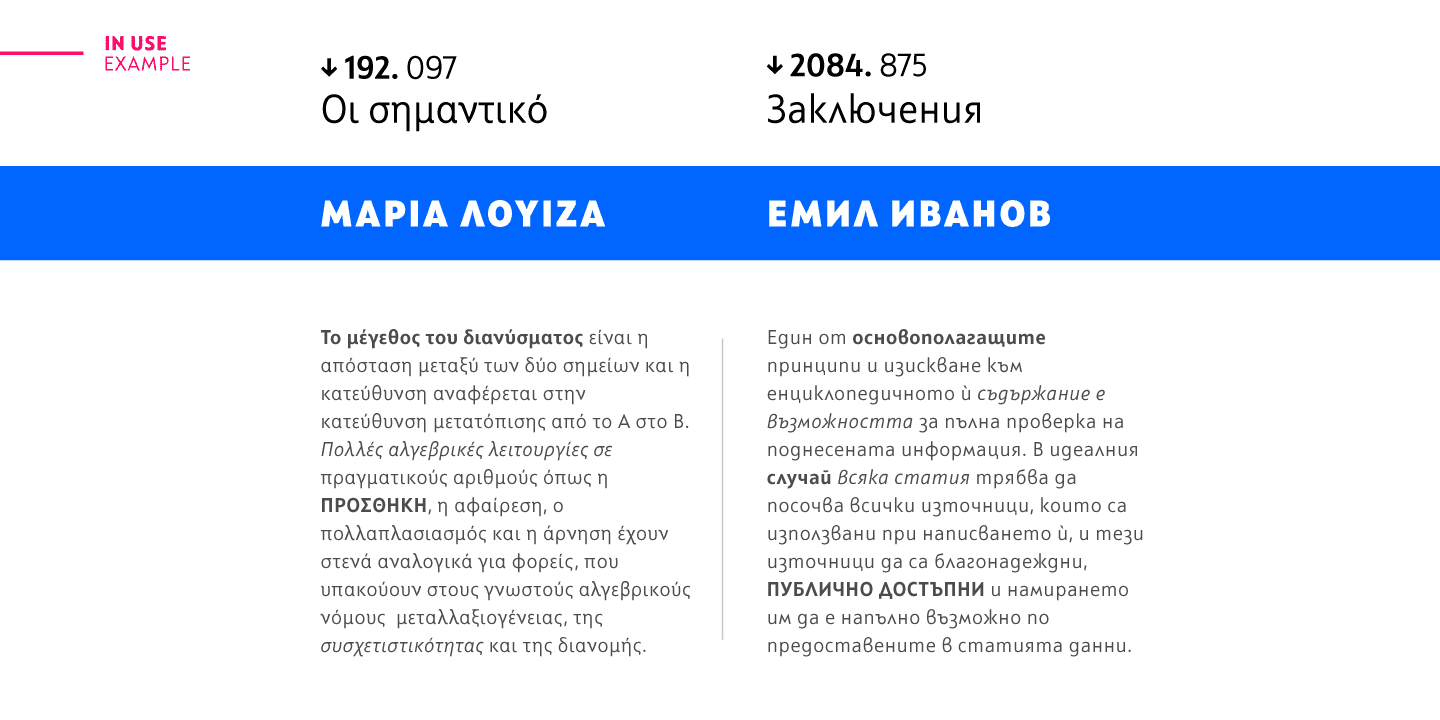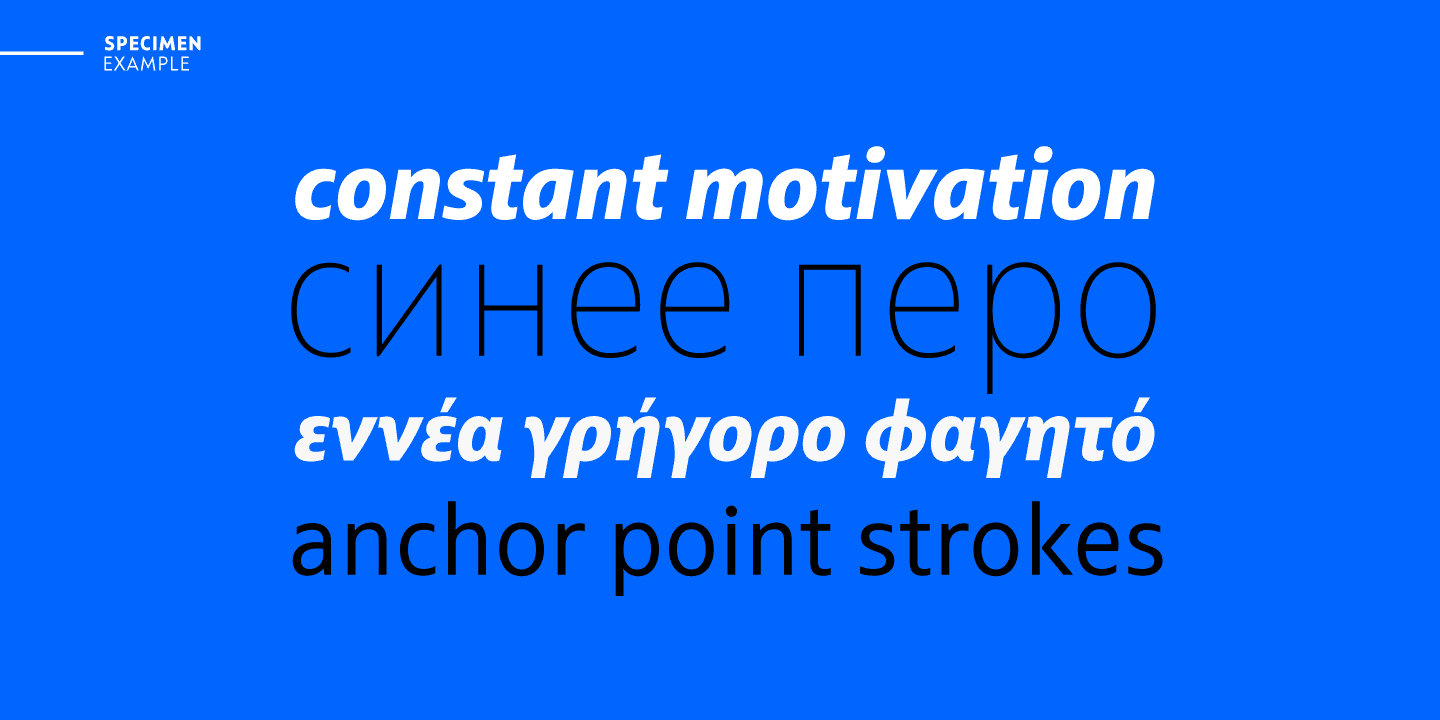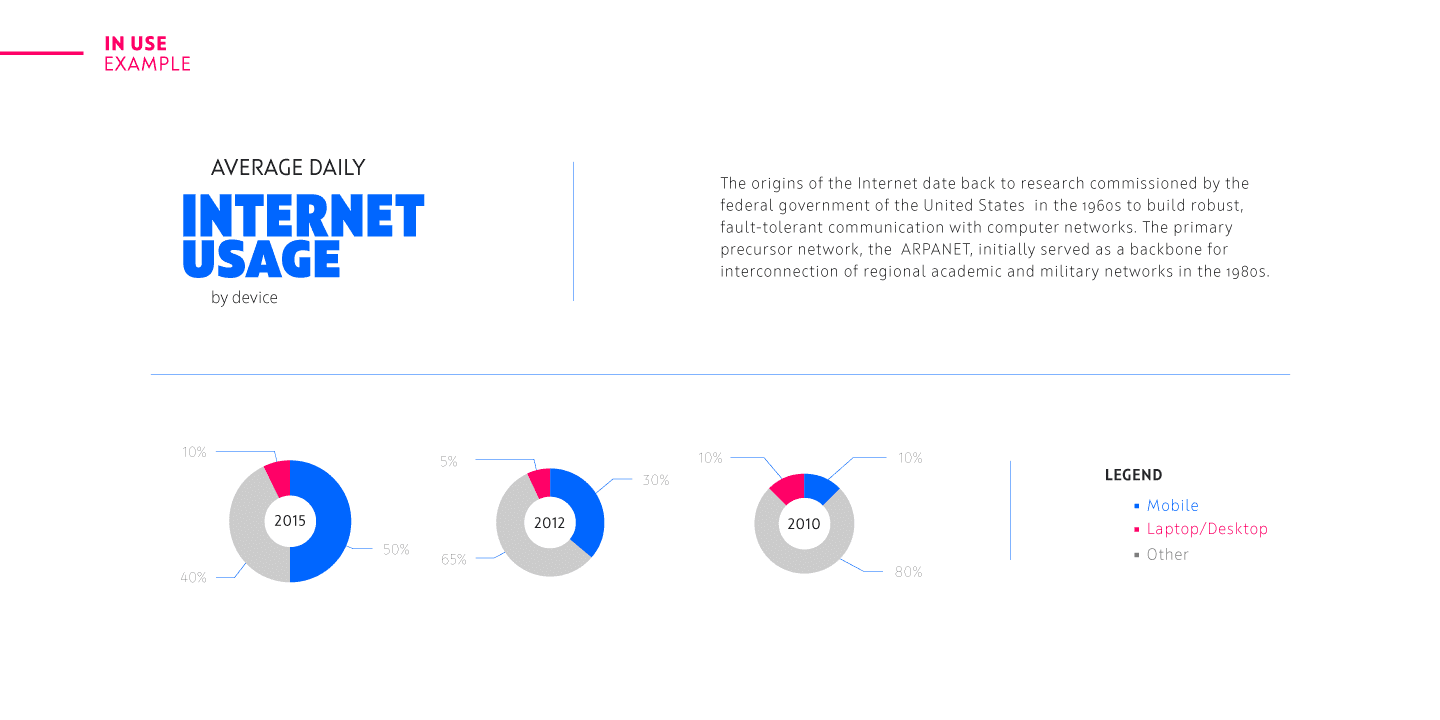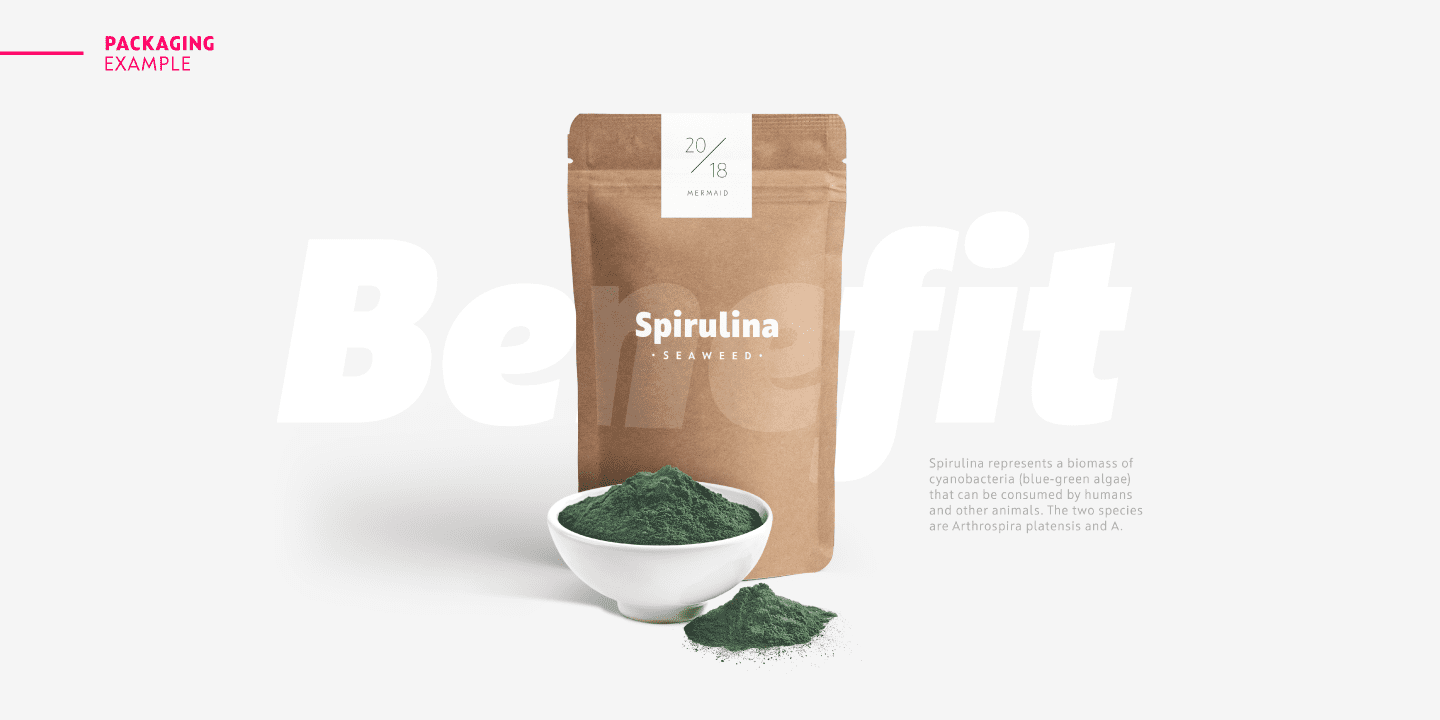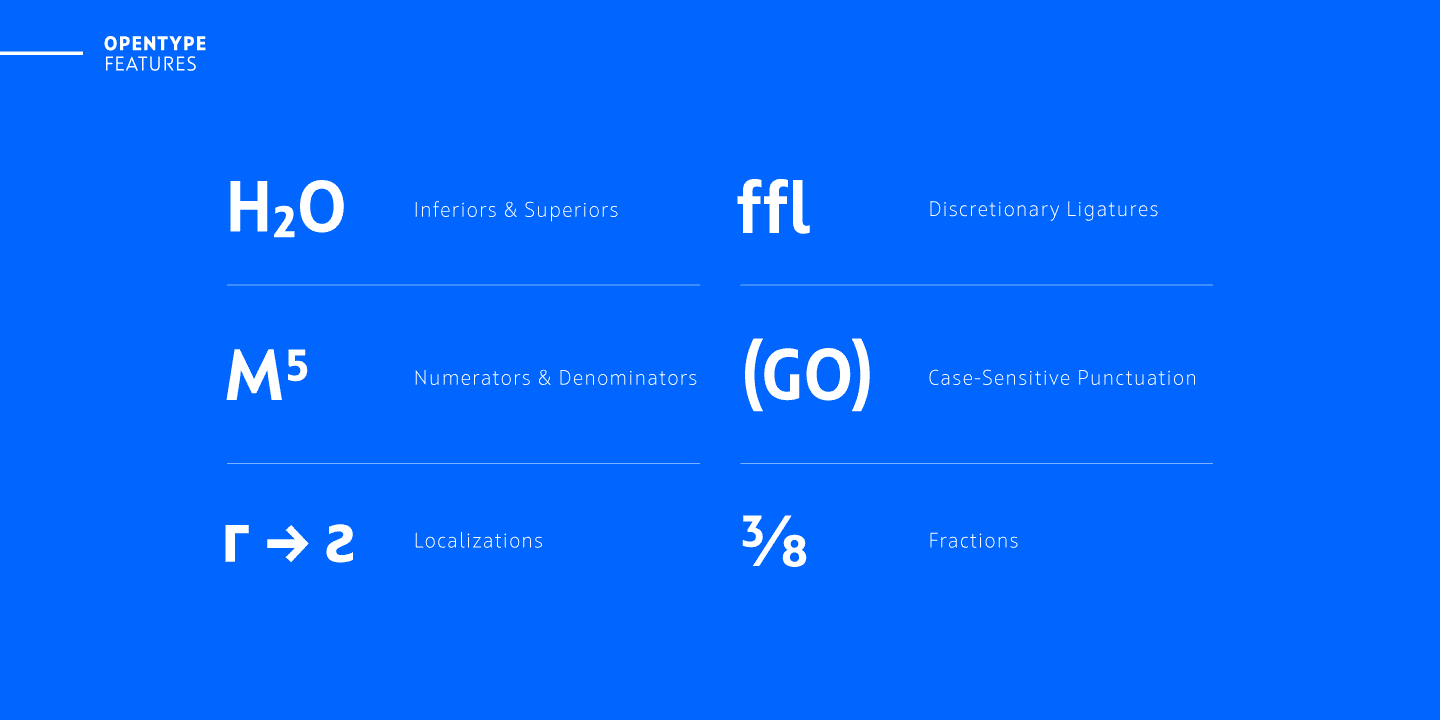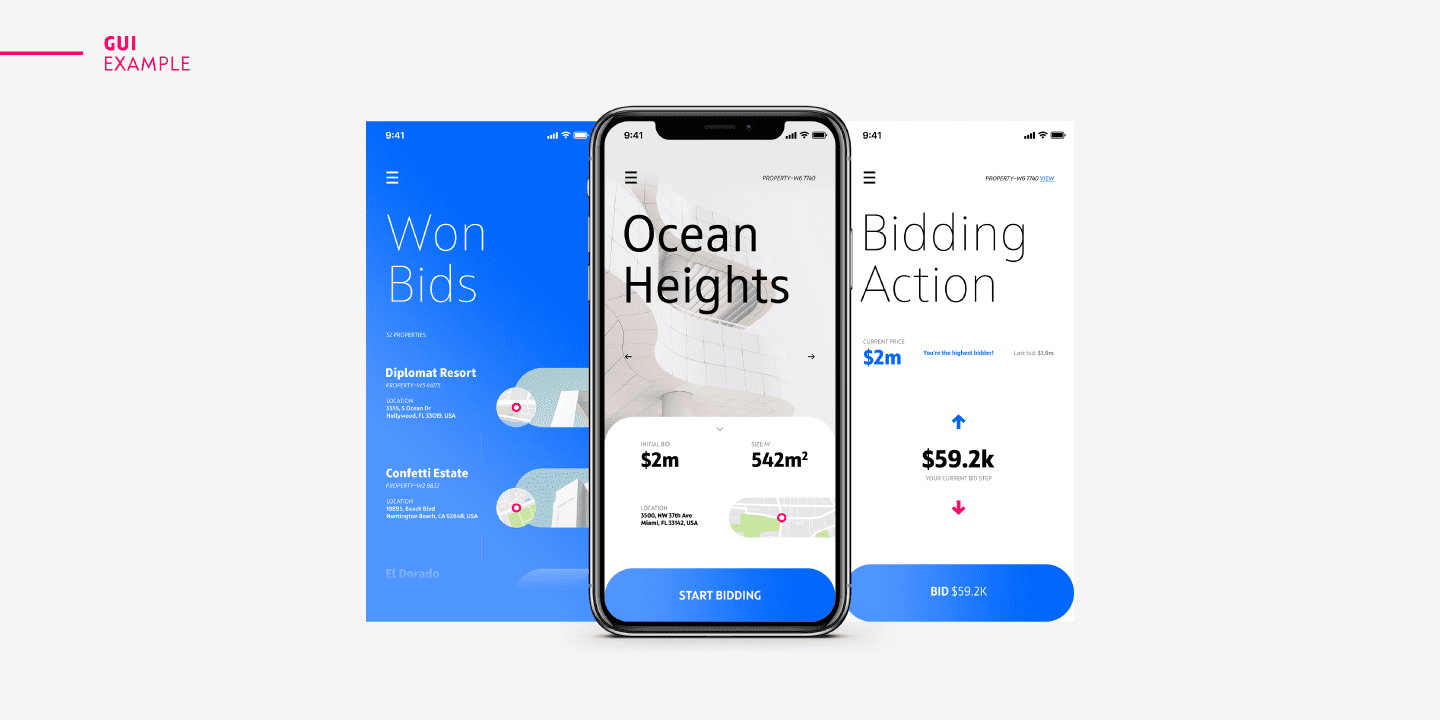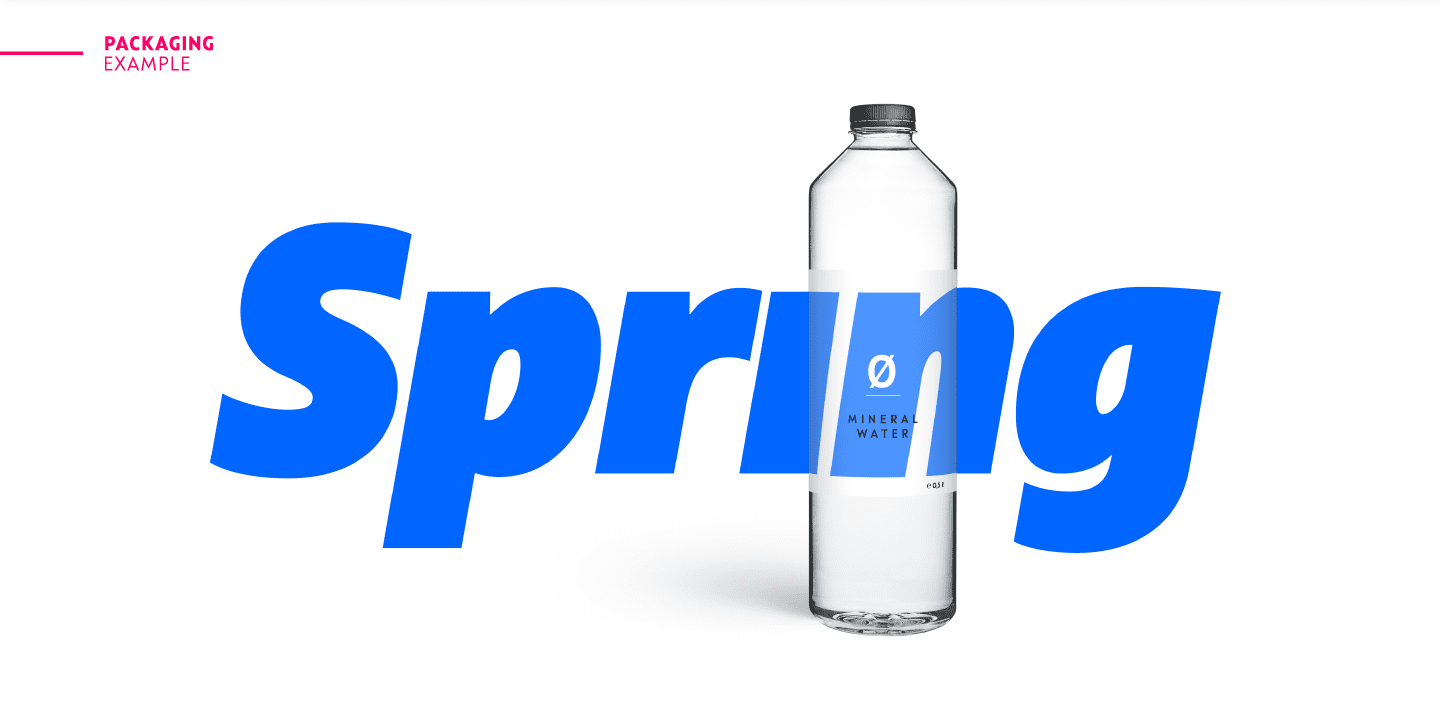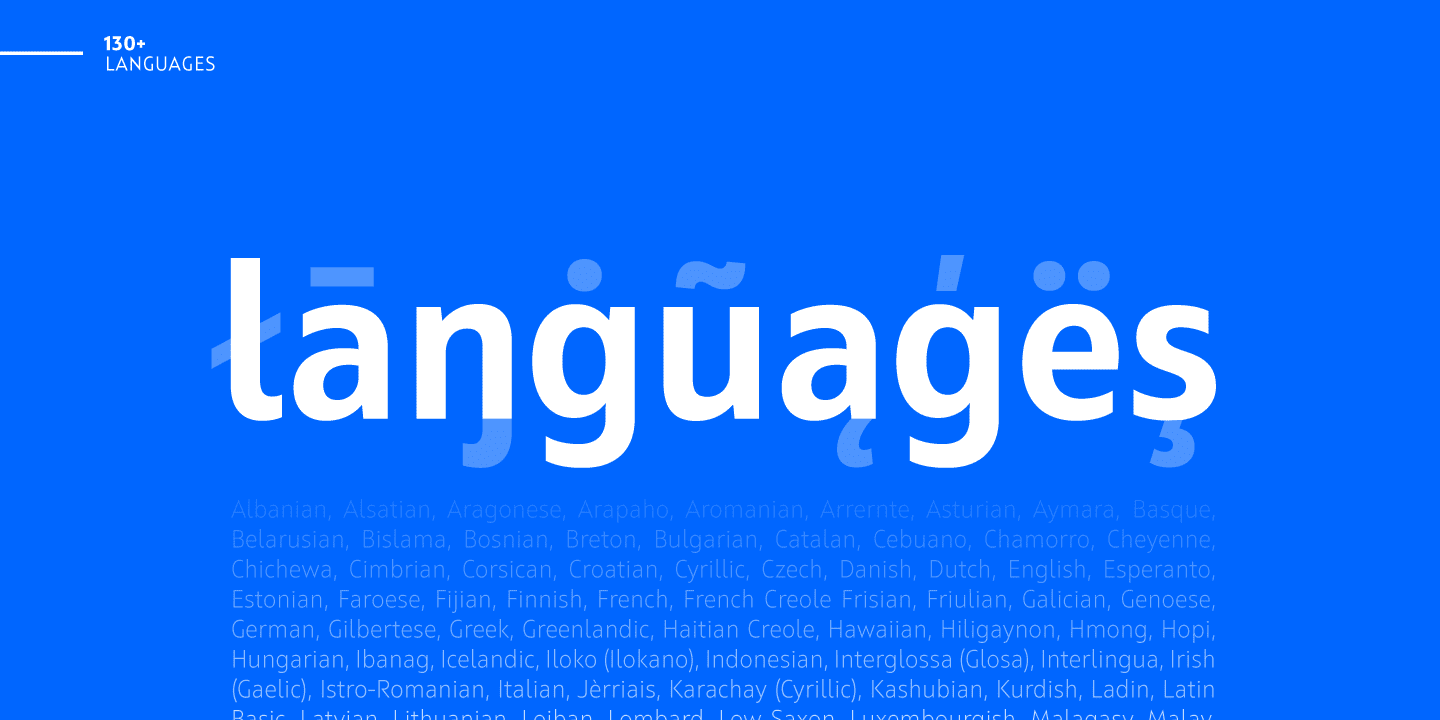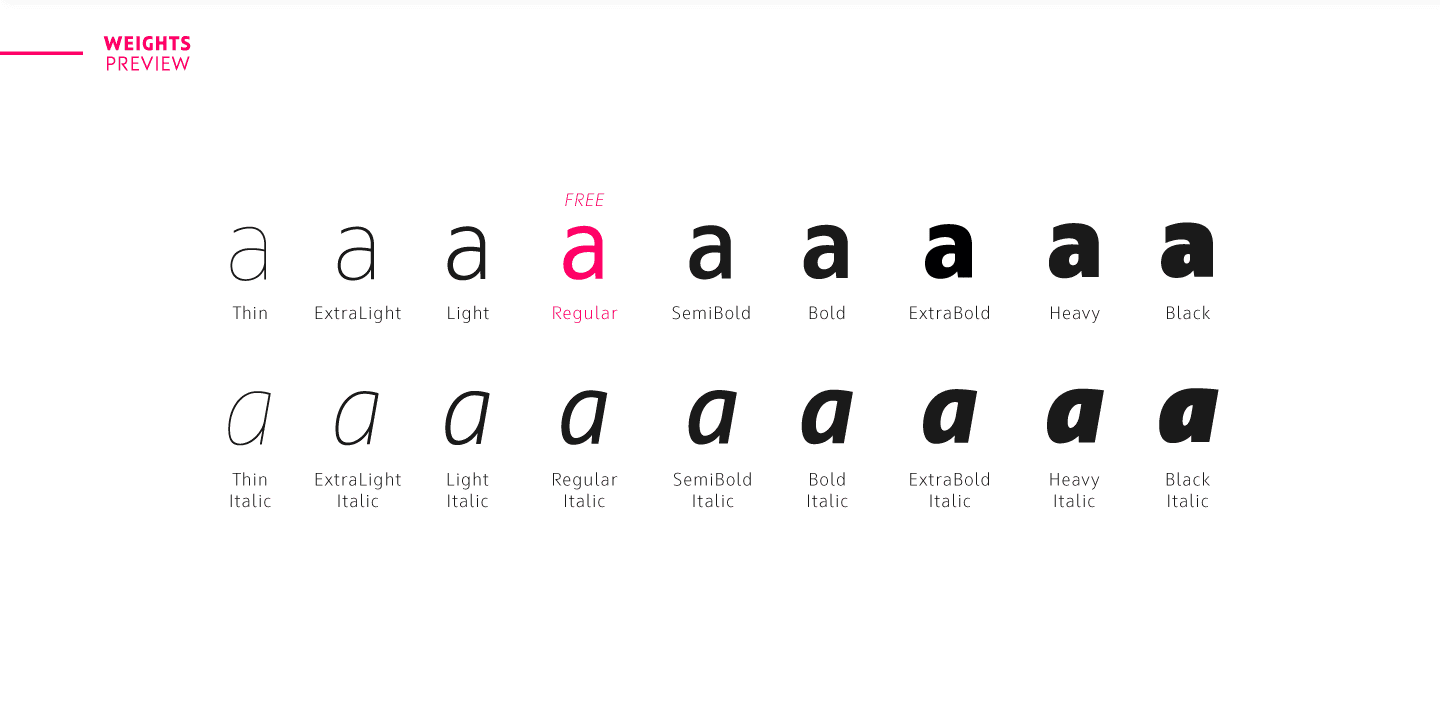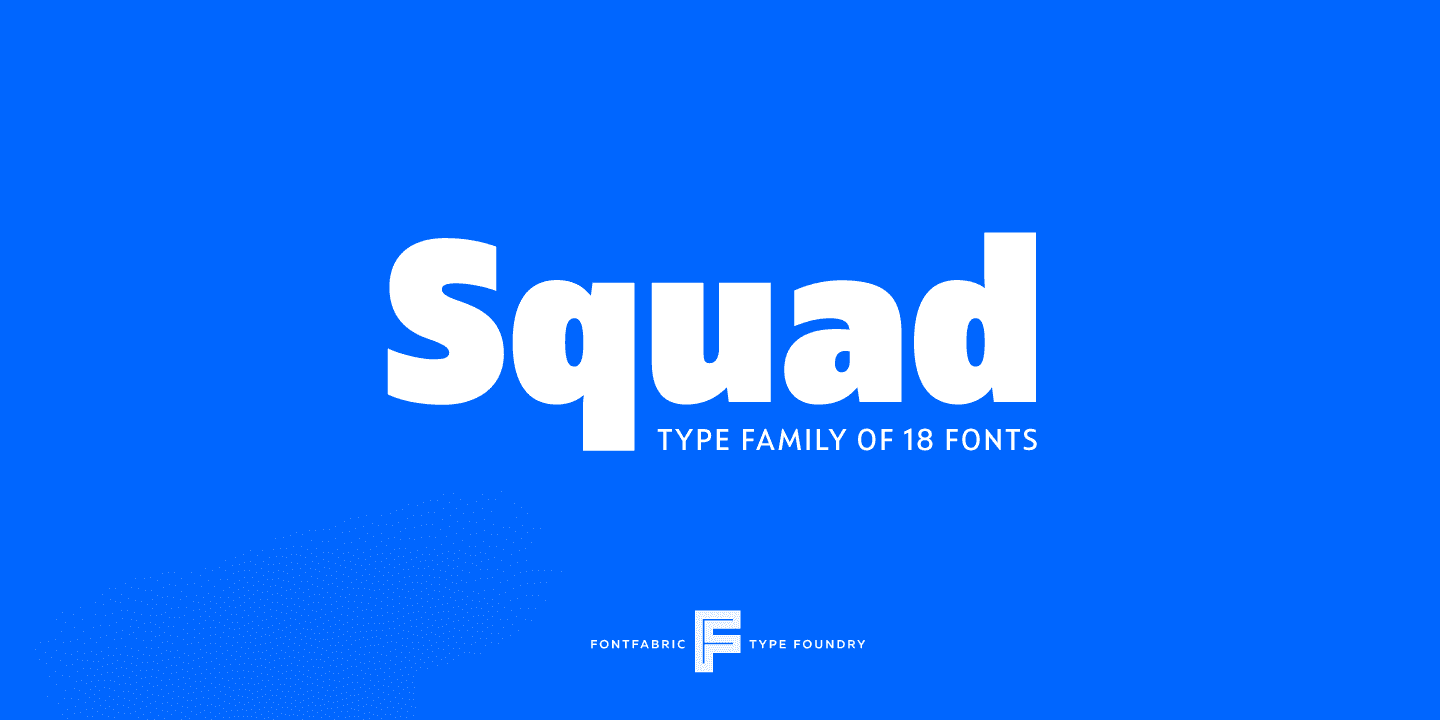
Squad Family (18 fonts)
From Fontfabric
Features:
• Over 780 glyphs in 18 styles (Thin to Black)
• Extended Latin, Cyrillic and Greek scripts for more than 130 languages;
• High x-height and Semi Condensed proportions;
• Moderate contrast and vertical stress;
• Humanistic characteristics and open vertical terminals;
• True form of italics;
• Coverage of multiple OpenType features;
• Perfect for text, headlines and web;